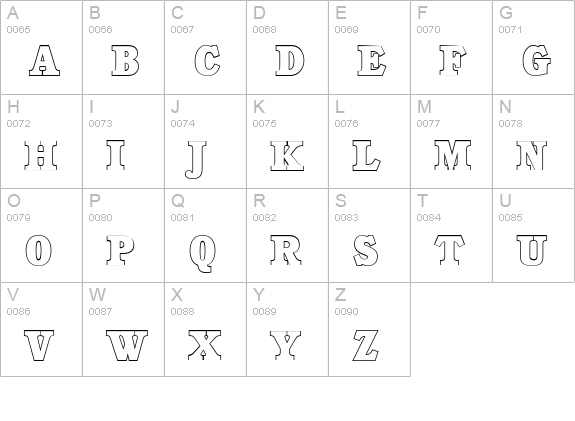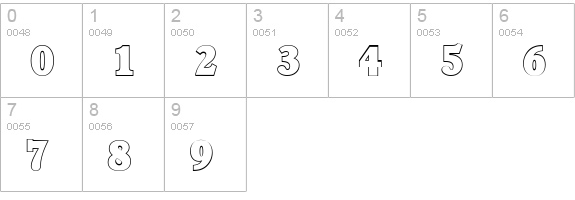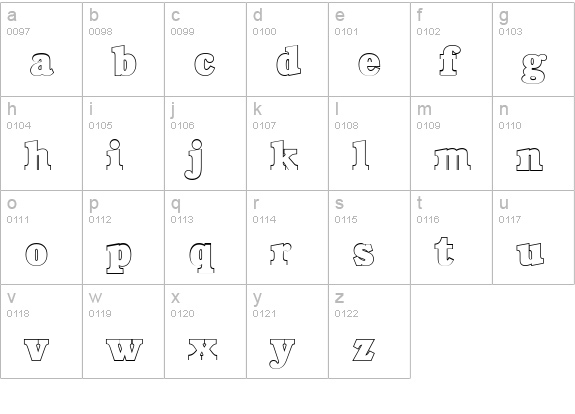
CalgaryOutline-Heavy-Regular Font Details
CalgaryOutline-Heavy-Regular is a heavy, high-impact variant in the CalgaryOutline typeface family \xE2\x80\x94 well suited to high-impact headlines, posters, and display advertising.
CalgaryOutline-Heavy-Regular font is a bold and eye-catching typeface that exudes modernity and sophistication. With its strong outlines and sleek design, this font is perfect for making a statement in headlines, titles, and branding projects. The sharp edges and distinct lines give it a contemporary edge that will surely grab the attention of your audience. What's even better is that CalgaryOutline-Heavy-Regular font is available for free download at FontsMarket.com. This means you can easily add this stylish font to your design arsenal without breaking the bank. Whether you're working on a poster, website, logo, or any other creative project, CalgaryOutline-Heavy-Regular font will elevate your work with its bold and impactful presence. Download it now and start incorporating this modern typeface into your designs to make a lasting impression.